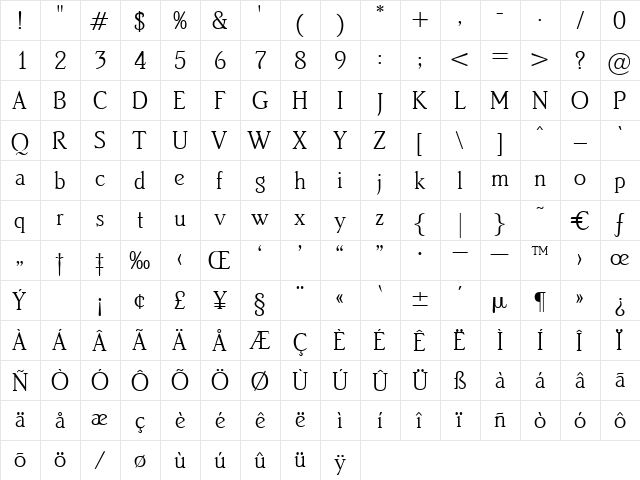
SarahLight Regular
Design Context for SarahLight Typeface
SarahLight offers clean, dependable letterforms without strong stylistic allegiance, making it a practical choice for designers who need flexibility. The delicate stroke weight brings airiness and refinement to layouts.